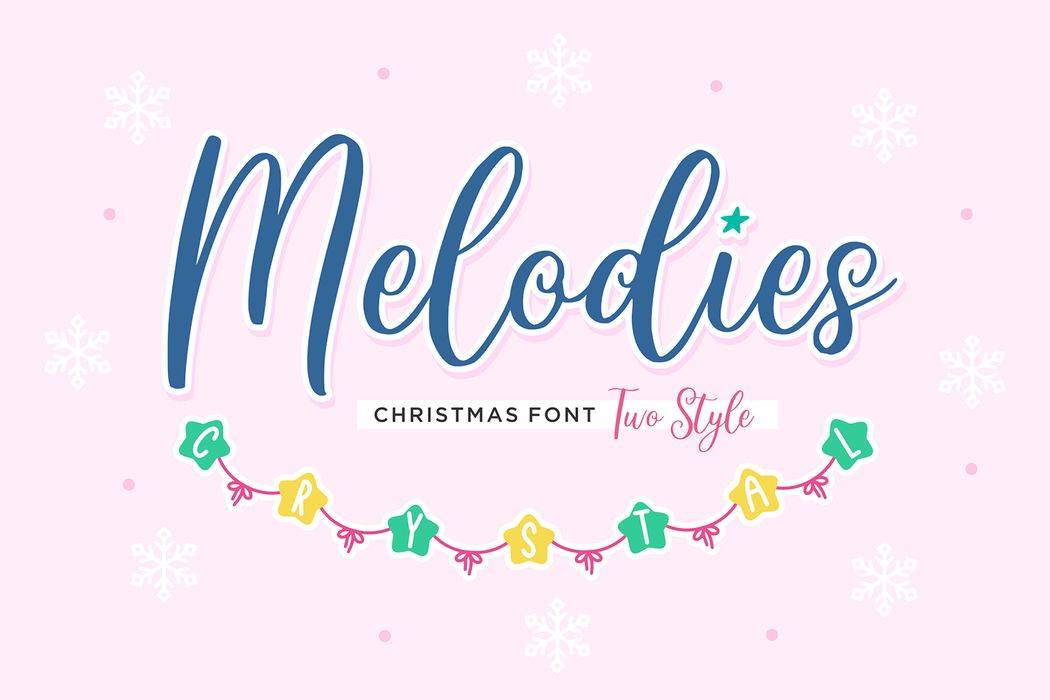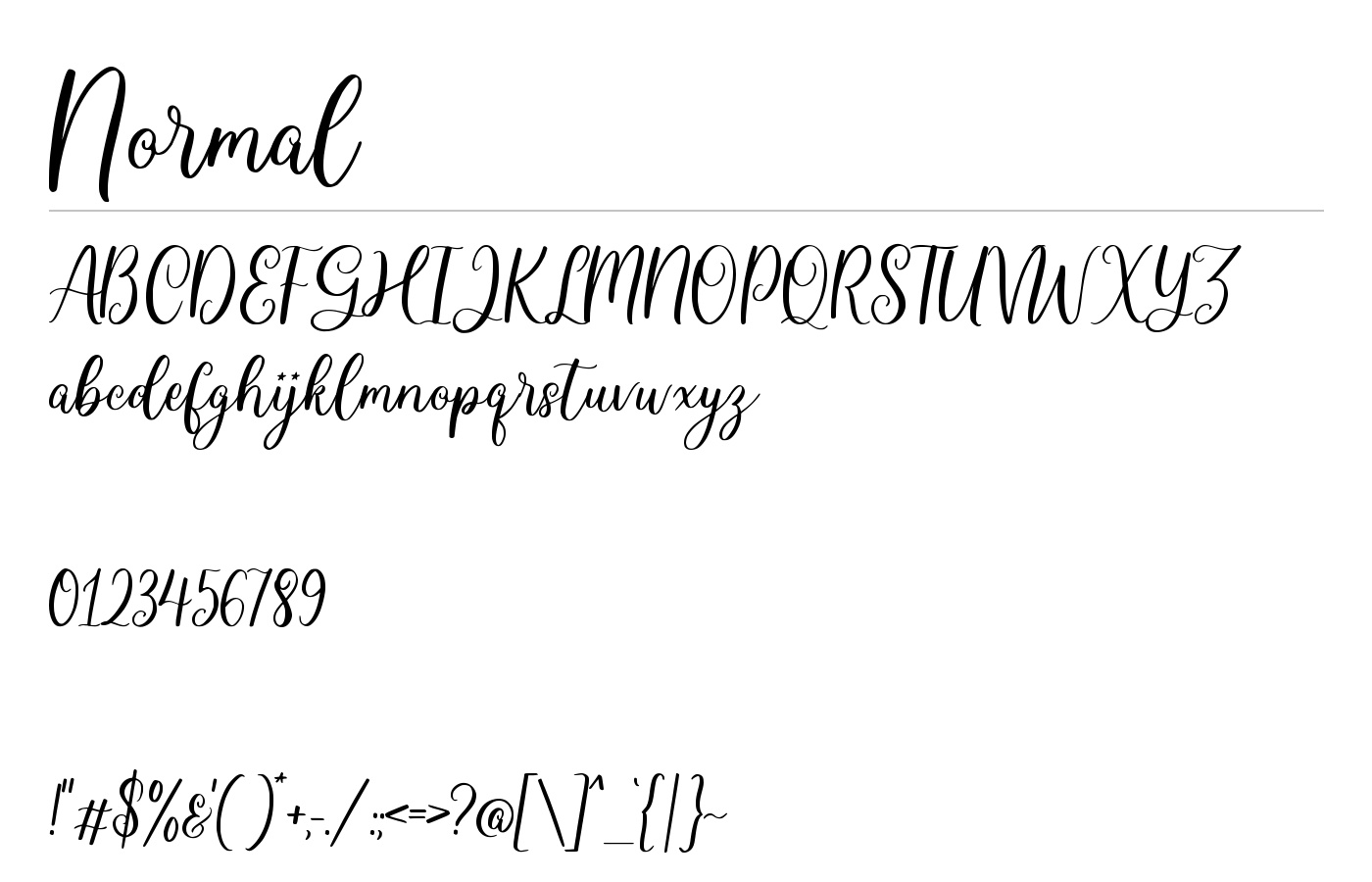
Melodies Crystal is a delicate, elegant script font with a light weight and smooth, flowing strokes that create a graceful, handwritten feel. Its tall x-height and slightly condensed letterforms give it a refined and airy appearance, making it ideal for sophisticated branding, invitations, and artistic projects that seek a touch of charm and femininity. This font works beautifully in headlines and decorative uses where its unique swashes and letter shapes can truly shine.
Melodies Crystal Font
About Melodies Crystal Font
| Font family | Melodies Crystal Font |